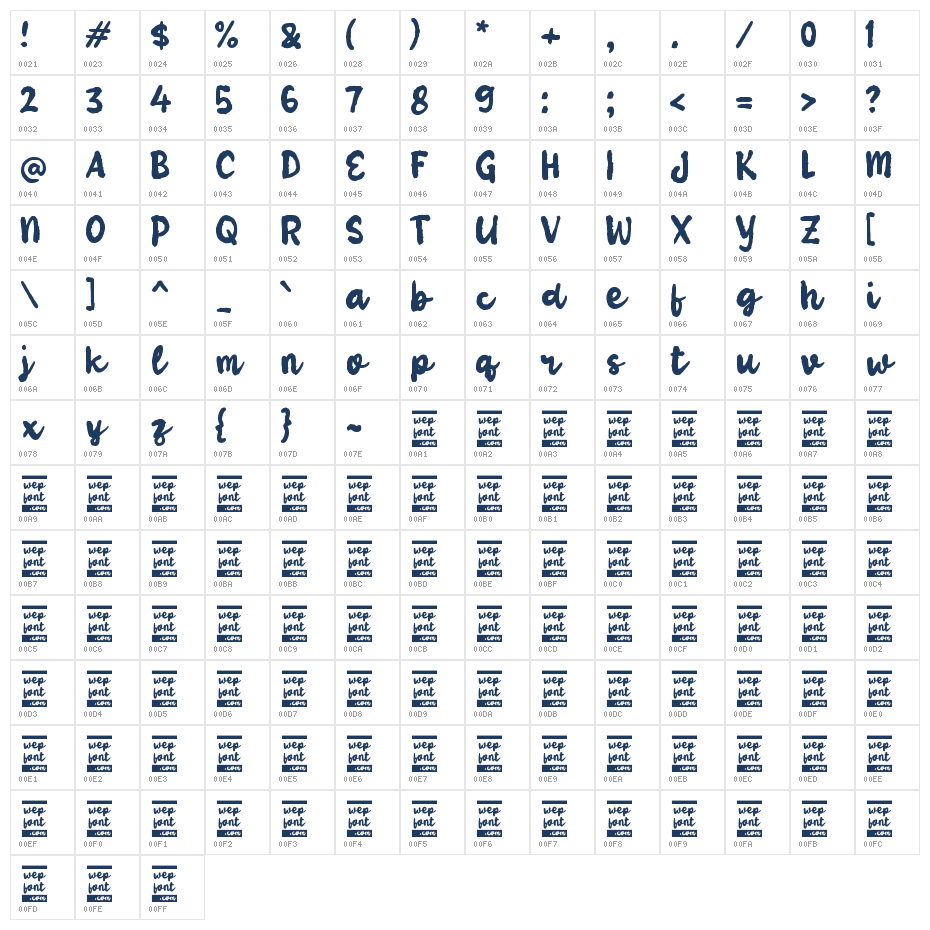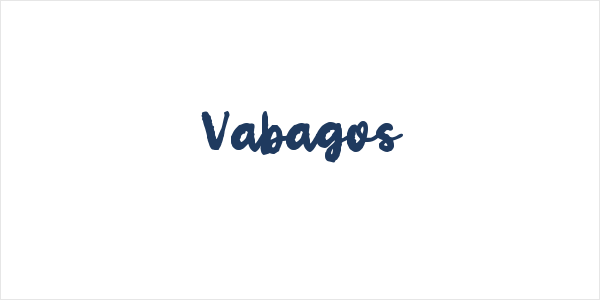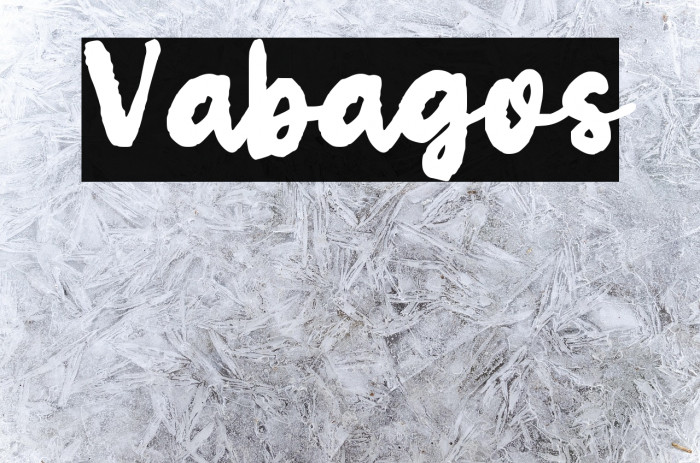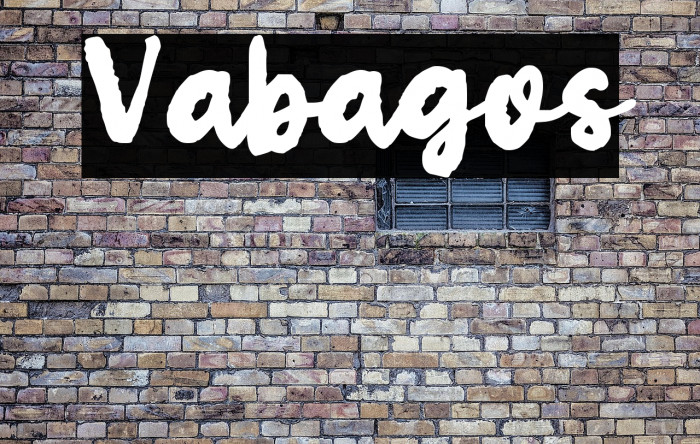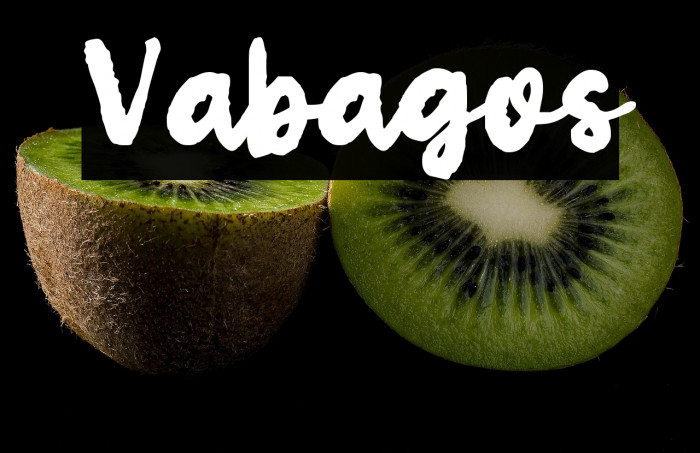
Vabagos Font
Vabagos Description
A playful, handwritten style font with bold, rounded characters that resemble casual, brush script lettering.
| Overall Style | Casual, Friendly, Playful |
| Use Case | Headlines, Posters, Invitations, Children's products |